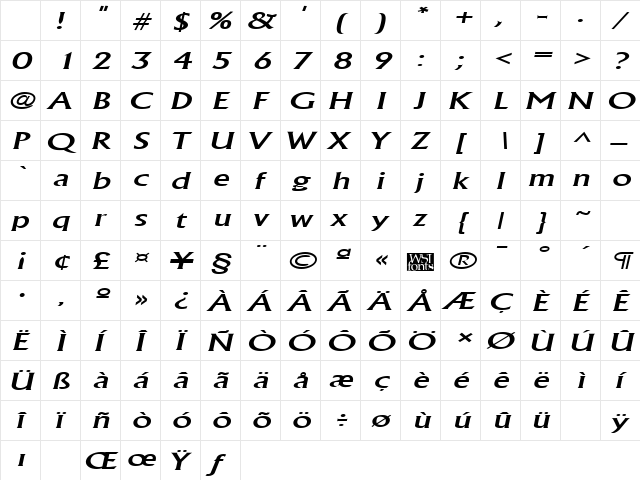
AcclaimWide is a composed and adaptable typeface that performs quietly and consistently across a wide range of design contexts. The slanted form adds forward momentum and visual energy.
Pro Tip: Use AcclaimWide for emphasis, pull quotes, and subheadings where its slanted energy can add rhythm to the layout.